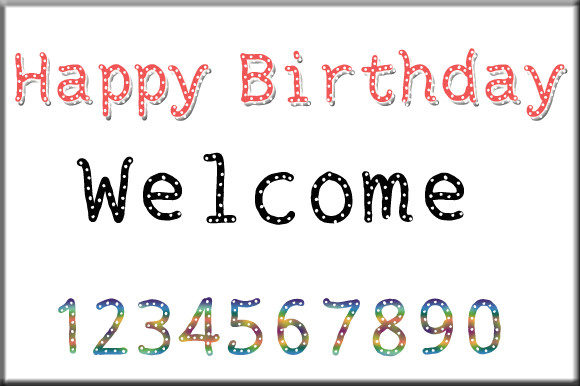
The Art of Instant Visual Appeal: Unleashing the Power of Dotted Handwriting Font
Have you ever been stuck in a creative rut, staring at a blank canvas or a blank page, wondering how to make your project truly stand out? It’s a feeling we’ve all been there, right? The frustration of wanting to express yourself, but struggling to find the perfect visual language to convey your message. That’s where the Dotted Handwriting Font comes in – a simple yet powerful tool to elevate your creations and leave a lasting impression.
This cool and interesting display font is more than just a pretty face; it’s a game-changer for designers and creatives looking to add a touch of personality to their work. With its strong visual effect, the Dotted Handwriting Font instantly adds a layer of sophistication and charm to any project, making it a valuable addition to any design toolkit.
- Unique Characteristics: Distinctive dotted style, creating a playful and whimsical feel, perfect for creative projects.
Dotted Handwriting Font Review
Overall, I’m quite pleased with the Dotted Handwriting Font. It’s a fun, whimsical addition to any design project ✨. The font’s unique, hand-drawn feel makes it perfect for projects that need a touch of personality.
- Highly customizable: The font can be easily adjusted to fit your design needs, from changing the spacing between letters to modifying the dot pattern.
- Good for titles and headings: The font’s large size and clear, readable text make it a great choice for titles and headings.
- Looks great on digital screens: The font’s digital design ensures it looks sharp and clear on screens of all sizes.
However, there are a few limitations to keep in mind ⚠️. The font may not be the best choice for large blocks of text, as the irregular spacing between letters can make it difficult to read.
Additionally, the font may not be suitable for formal or professional projects, as its playful feel may come across as unprofessional.
Overall, I’d give the Dotted Handwriting Font 4 out of 5 stars. It’s a great choice for designers looking to add some personality to their projects, but it may not be the best fit for every project.
Tips for Getting the Most Out of the Dotted Handwriting Font
Use the Dotted Handwriting Font to create a personal and whimsical feel in your designs.
Combine it with other fonts to create a unique and eye-catching look.
Use it in invitations, greeting cards, and other creative projects.